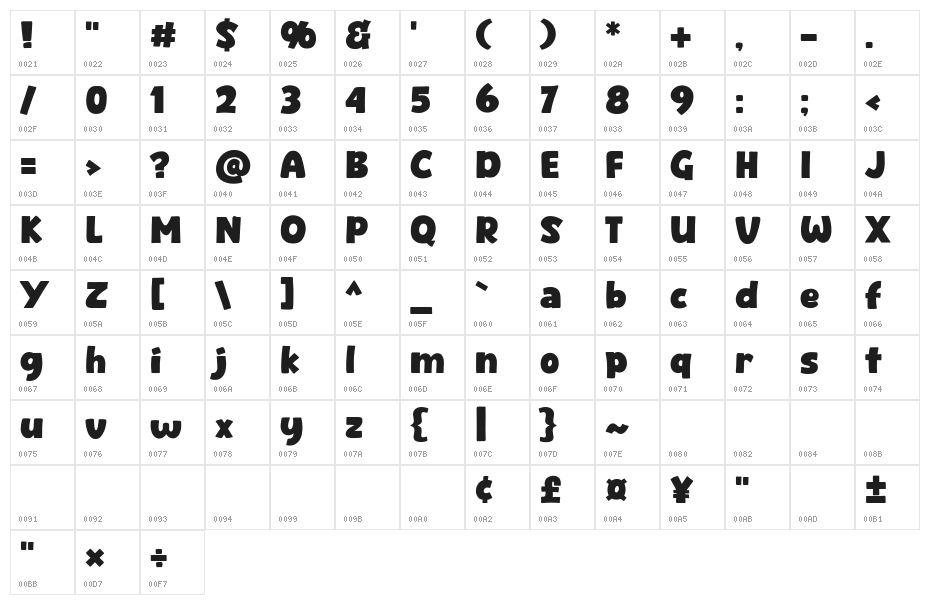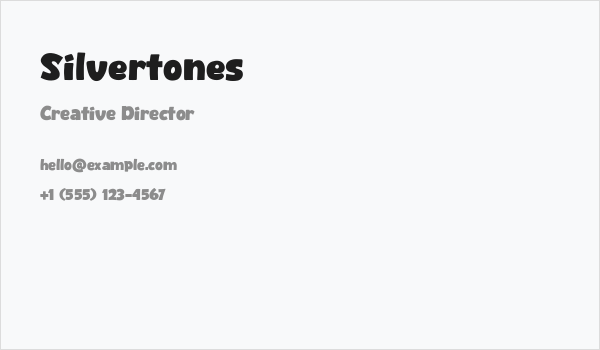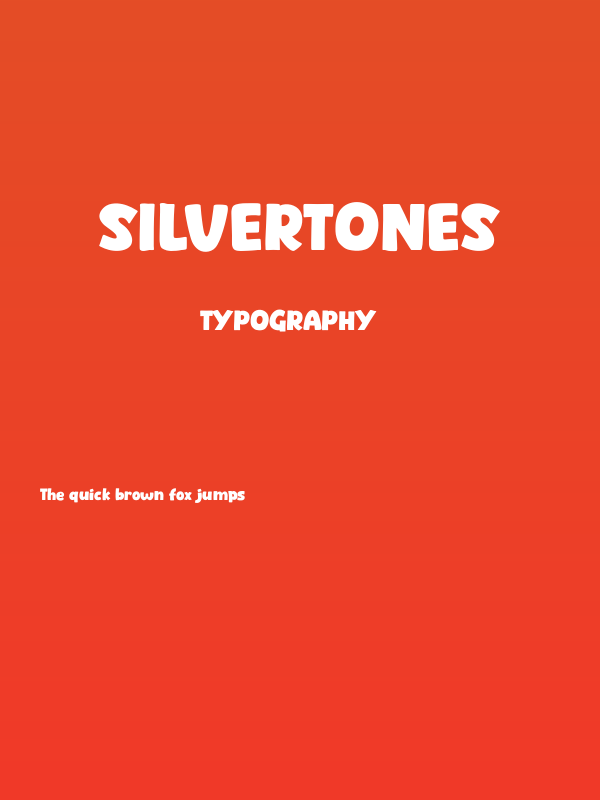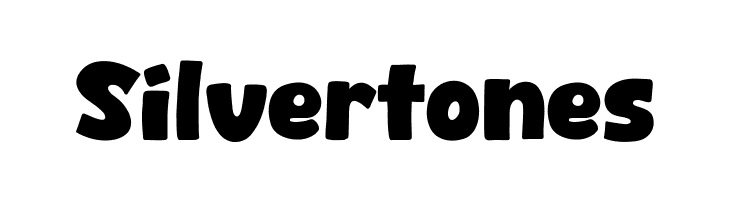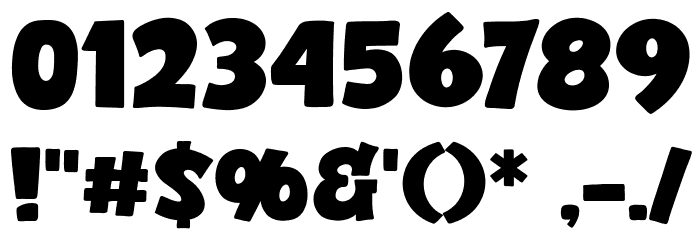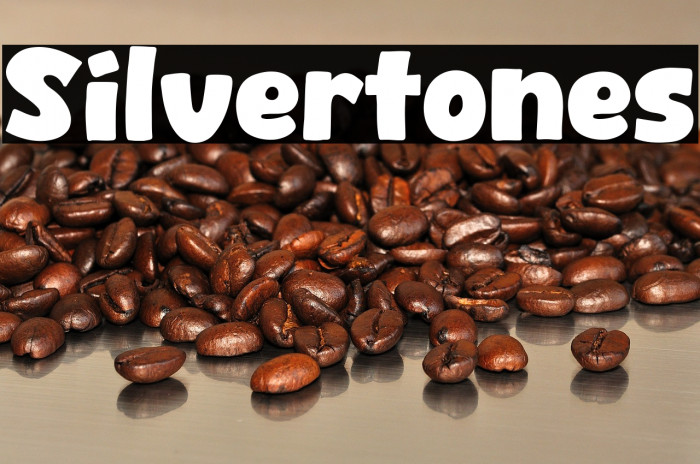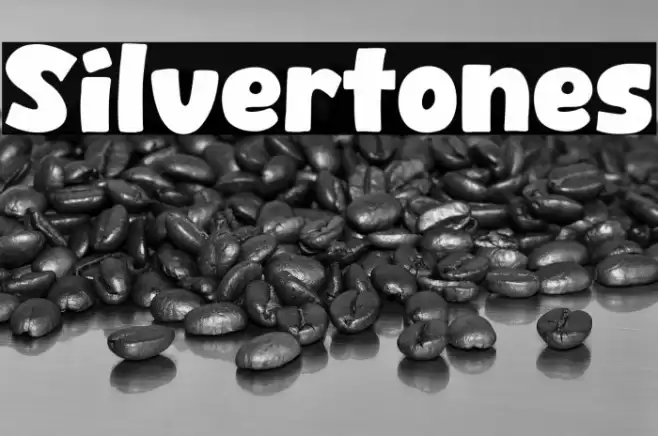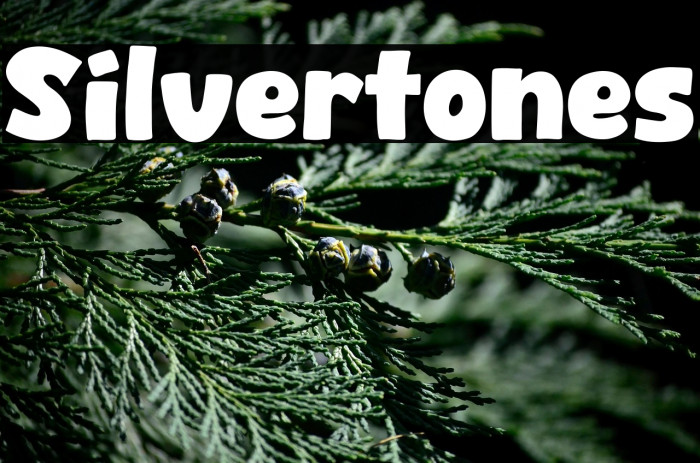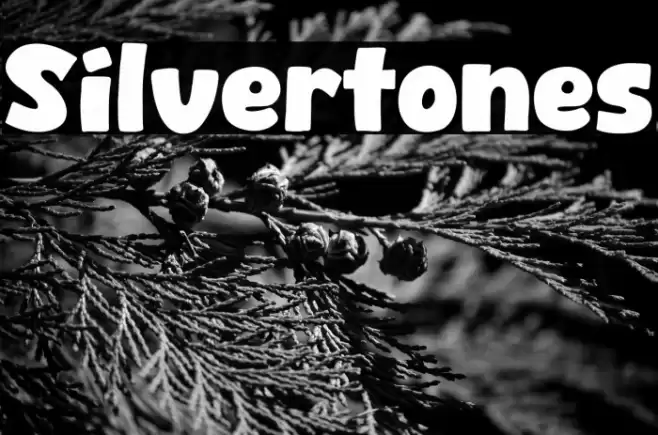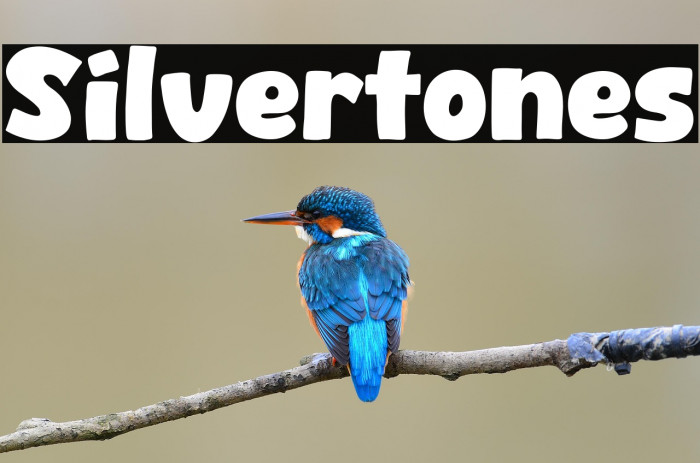
Silvertones Font
| Stile generale | Playful, Creative |
| Progetti proposti | Ideal for children's books, playful branding, posters, and creative advertisements. |